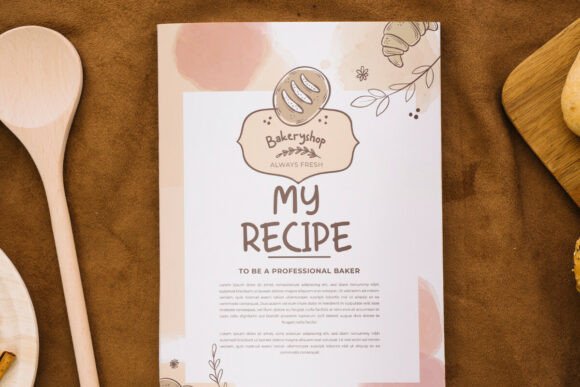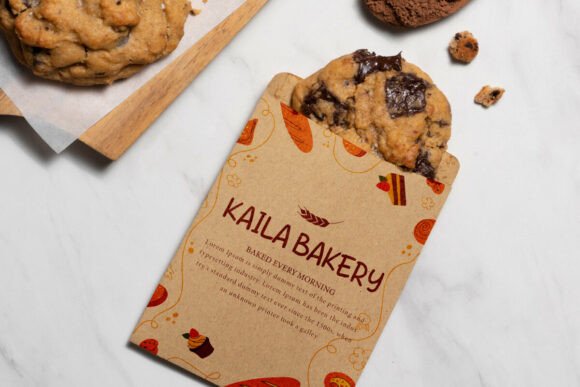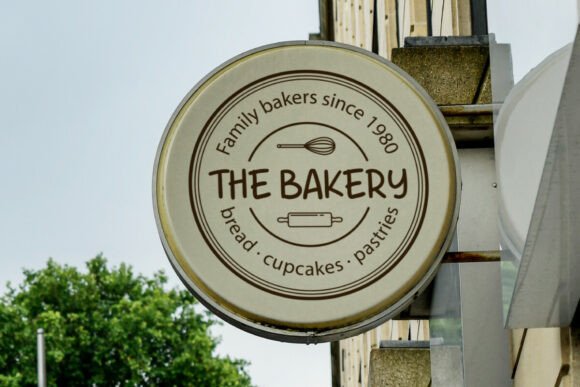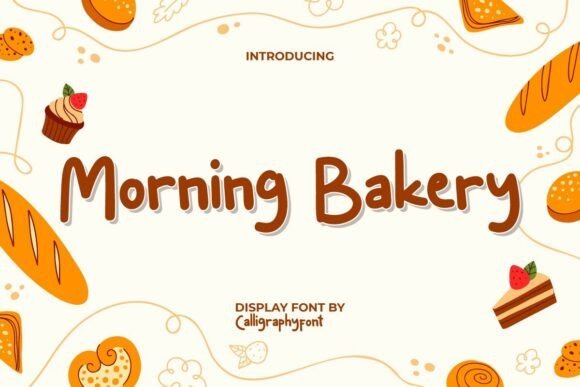
Introduction to Morning Bakery Font
Morning Bakery is a cute and sweet display font with a fun, monoline style and rounded edges.
Inspired by the charming look of children’s handwriting, each letter flows smoothly, adding a personal and handcrafted touch to any project Its casual, approachable style makes it a versatile choice, whether used on its own or paired with other typefaces.
Key Features of Morning Bakery Font
Why Choose Morning Bakery Font?
Morning Bakery Font offers exceptional quality and versatility, making it a valuable addition to your design toolkit. Whether you’re creating for personal projects or commercial use, Morning Bakery Font delivers professional results.